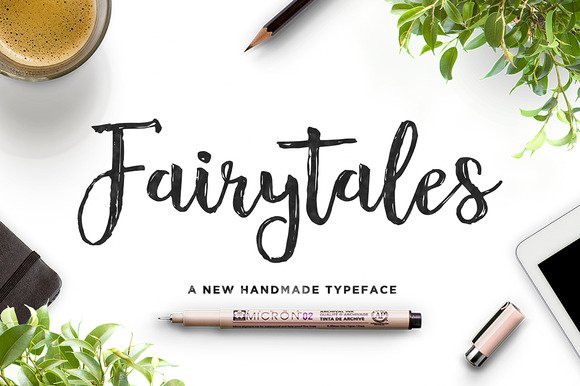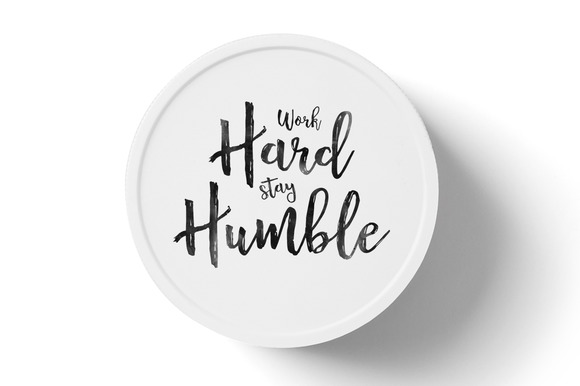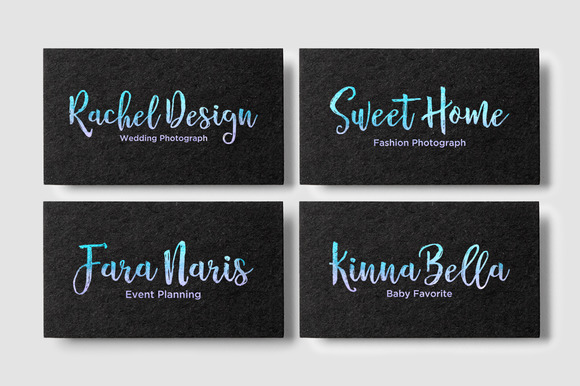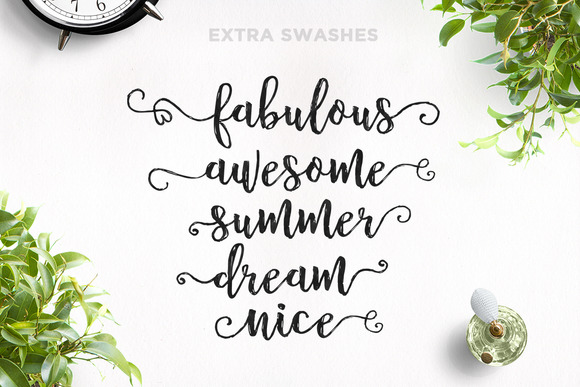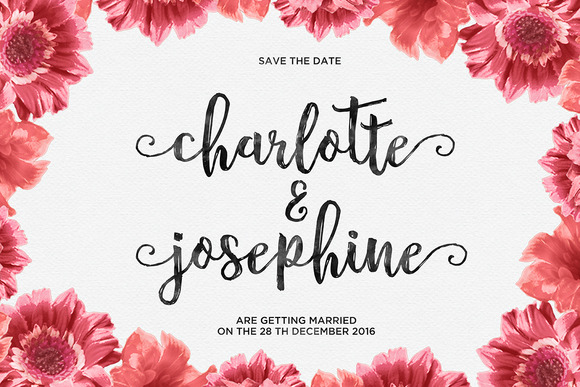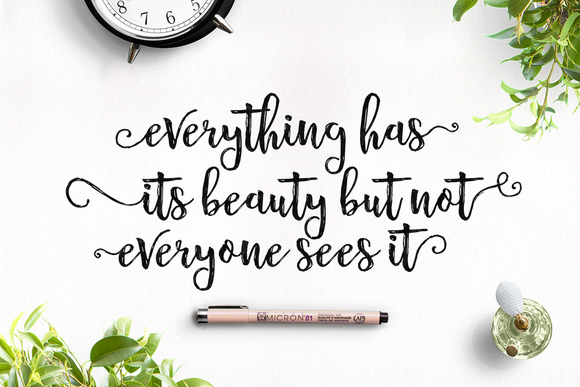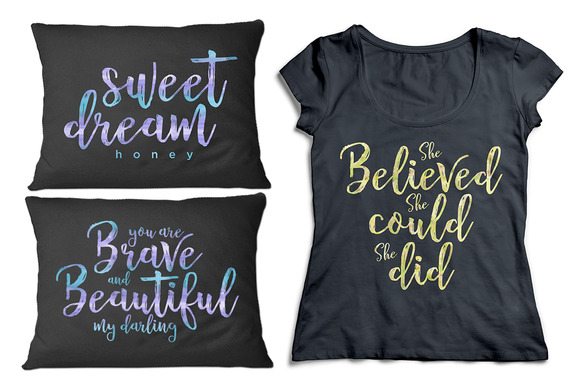
Unleash the Magic of Handmade Typography
Have you ever been swept away by the whimsical world of fairytales, where enchanting stories and captivating characters transport you to a realm of wonder? As designers, we’ve all been there – lost in the thrill of creating something that sparks imagination and joy. And now, we’re excited to share with you a new tool that will help you conjure up that same magic: the Fairytales Script Font.
This beautiful, handmade typeface is perfect for designers looking to add a touch of elegance and whimsy to their projects. With its dancing baselines and playful feel, Fairytales Script Font is ideal for headings, logos, invitations, and more. Whether you’re working on a children’s book cover or a wedding invitation, this font is sure to bring a smile to your clients’ faces.
Fairytales Script Font Key Features
- Unique Characteristics: Features a whimsical, hand-drawn script style with elegant flourishes and subtle texture, perfect for creating a vintage or romantic atmosphere in designs
Fairytales Script Font Review
First off, let me say that I’m absolutely in love with the whimsical feel of Fairytales Script Font. ✨ It’s like a breath of fresh air in the world of script fonts – so delicate and charming, yet still strong enough to hold its own on a page. The flourishes and swashes add a level of sophistication that’s hard to find in other script fonts.
The font is also incredibly versatile, making it perfect for a wide range of projects. ✨ From children’s books to wedding invitations, Fairytales Script Font is sure to bring a touch of magic to any design.
- Whimsical and delicate feel
- Perfect for a wide range of projects
- Sophisticated flourishes and swashes
- May be too delicate for some projects
- Not ideal for body text (best used for titles and headings)
- Some letters may be difficult to read at small sizes
Overall, I’d give Fairytales Script Font 4.5 out of 5 stars. It’s a beautiful and versatile font that’s sure to bring a touch of magic to any design. However, it’s not perfect, and some users may find it too delicate or difficult to read at small sizes. Still, I highly recommend it for any project where a touch of whimsy is needed.